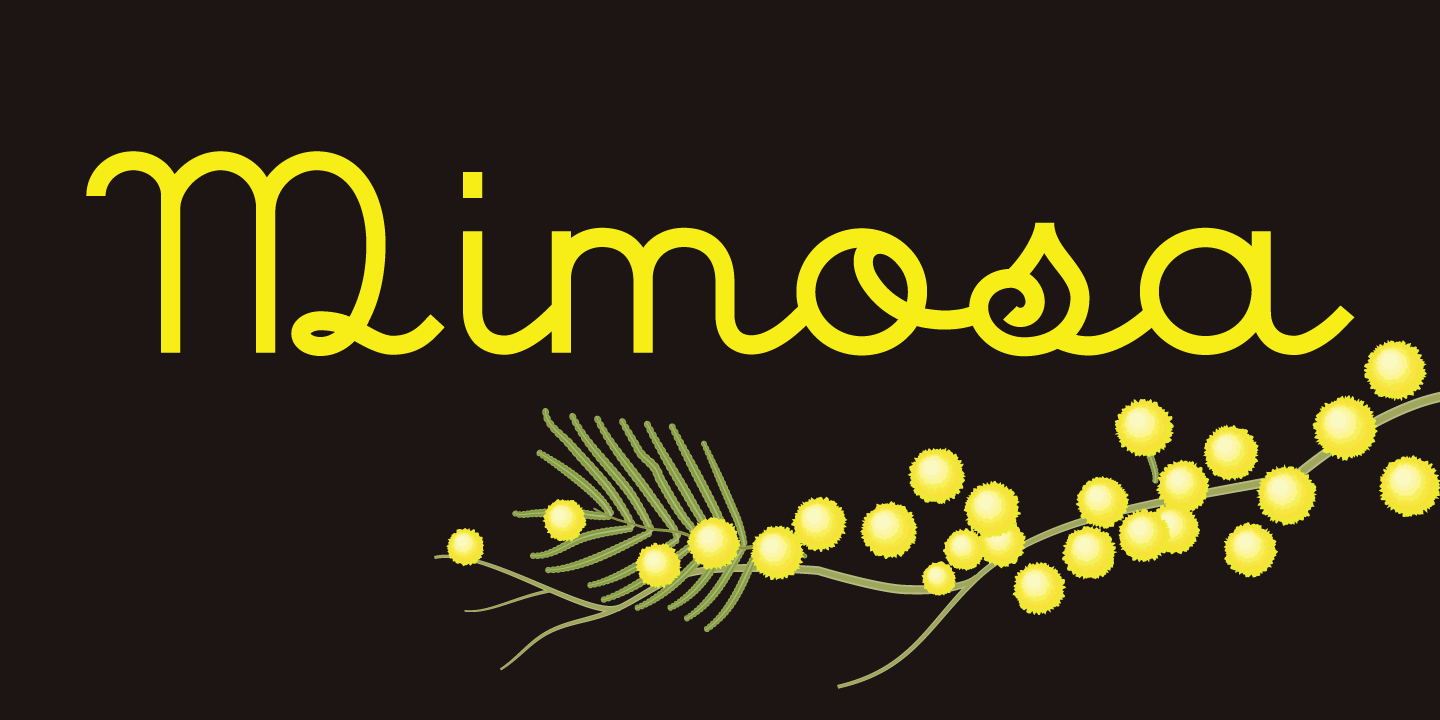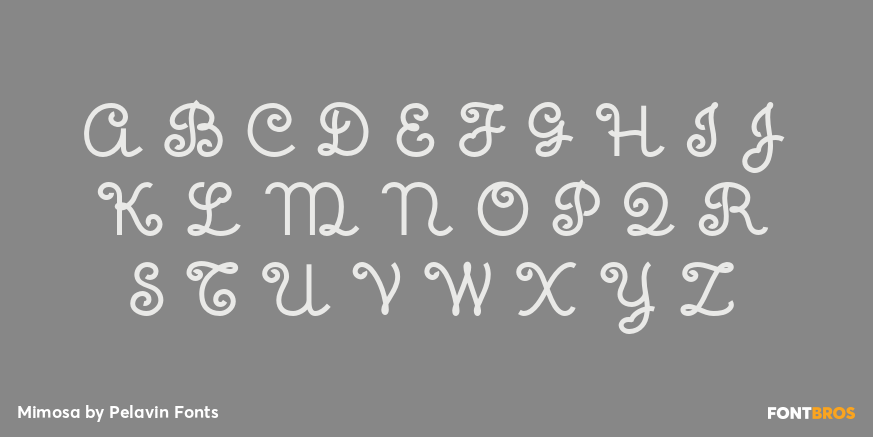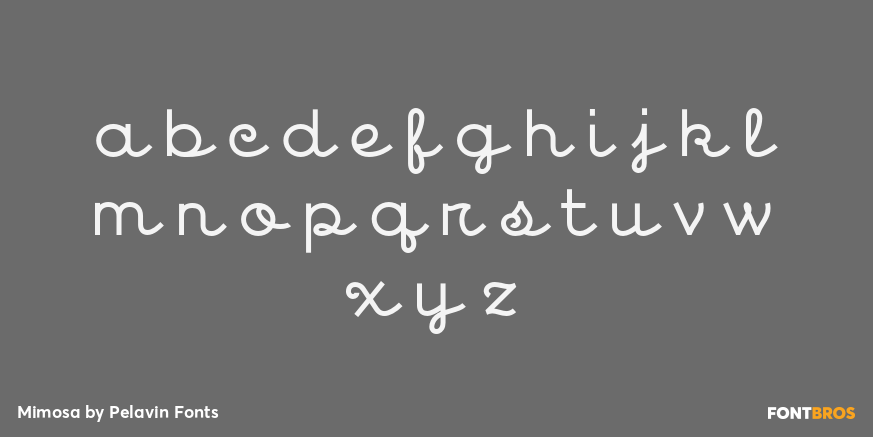
Mimosa
Font Family by Pelavin Fonts
The inspiration for Mimosa comes directly from the packaging for 'Moulinard Jeune', a line of French toiletries from the 1920s. I created the 240-odd glyphs needed to make up a complete font based upon the style of a handful of hand-lettered characters that were used on the original items.
Mimosa is a mono-weight, connecting vertical script with a fairly regular set of lower case and slightly more decorative upper case glyphs. As with any decorative script, if you set copy in all caps, you will be tracked down and severely punished by the type police.